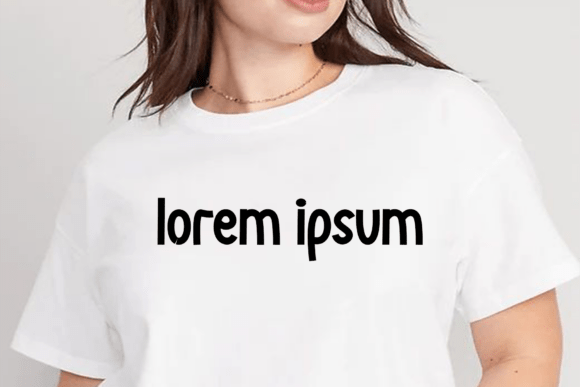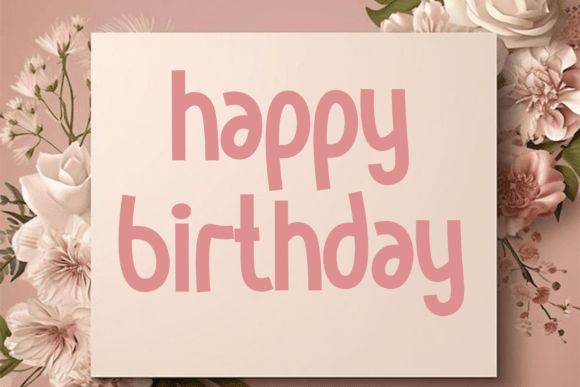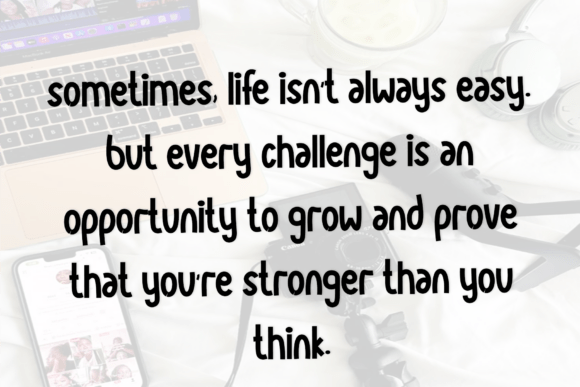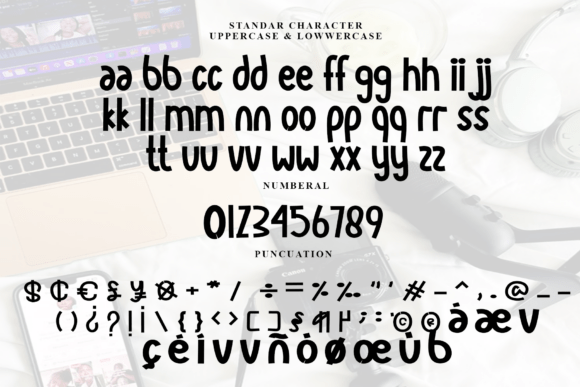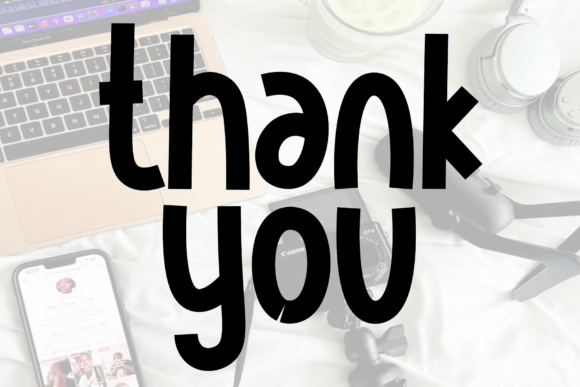
Unleashing the Warmth of Handwritten Style
Have you ever found yourself scribbling down ideas in a notebook, only to have your creative spark spark a whole new project? That’s exactly what happened to us when we stumbled upon the Ceator Font. Its effortless charm and modern feel made us want to share its warmth and personality with the world.
Designed to capture the essence of authentic handwriting, the Ceator Font is perfect for adding a personal touch to your designs. From quotes and invitations to branding and social media posts, this versatile font delivers both readability and charm. Whether you’re a seasoned designer or just starting out, the Ceator Font is a valuable addition to your toolkit.
Ceator Font Key Features
- Font Family: Ceator Font is a sans-serif font family that includes multiple weights and styles, offering a wide range of design possibilities.
- Unique Characteristics: Ceator Font features a clean and modern design with a subtle rounded edge, making it perfect for use in digital and print media.
- Language Support: Ceator Font supports a wide range of languages, including Latin, Cyrillic, and Greek alphabets, making it a versatile choice for international designs.
Designer Review: Ceator Font
After giving Ceator Font a thorough test drive, I have to say it’s a decent addition to any designer’s toolkit. ✨ One of the things that works well is its versatility – it’s suitable for both digital and print projects, making it a great all-rounder. The font’s clean lines and modern aesthetic also make it easy to pair with other fonts, which is a definite bonus.
Another strength of Ceator Font is its excellent legibility. ✨ Whether you’re using it for body text or headings, the font is clear and easy to read, even at smaller font sizes. The font also supports a wide range of languages, which is a significant advantage for designers working on international projects.
- ⚠️ Ceator Font lacks a strong personality – it’s a safe choice, but it won’t stand out in a crowded market.
- ⚠️ The font’s range of weights is limited, which can make it difficult to create a cohesive visual hierarchy.
- ⚠️ The font’s kerning can be a bit wonky at times, which can affect the overall readability of text.
Overall, Ceator Font is a solid choice for designers who need a reliable, all-purpose font. While it may not be the most exciting option, it’s a safe bet that will get the job done. With a bit more development and refinement, Ceator Font could be a real standout in the world of typography.
Tips for Getting the Most Out of Ceator Font
Use Ceator Font for creative and artistic projects, such as:
- Infographics and data visualizations
- Posters and flyers
- Brand identities and logos
Experiment with different font sizes, colors, and styles to create unique and eye-catching designs.